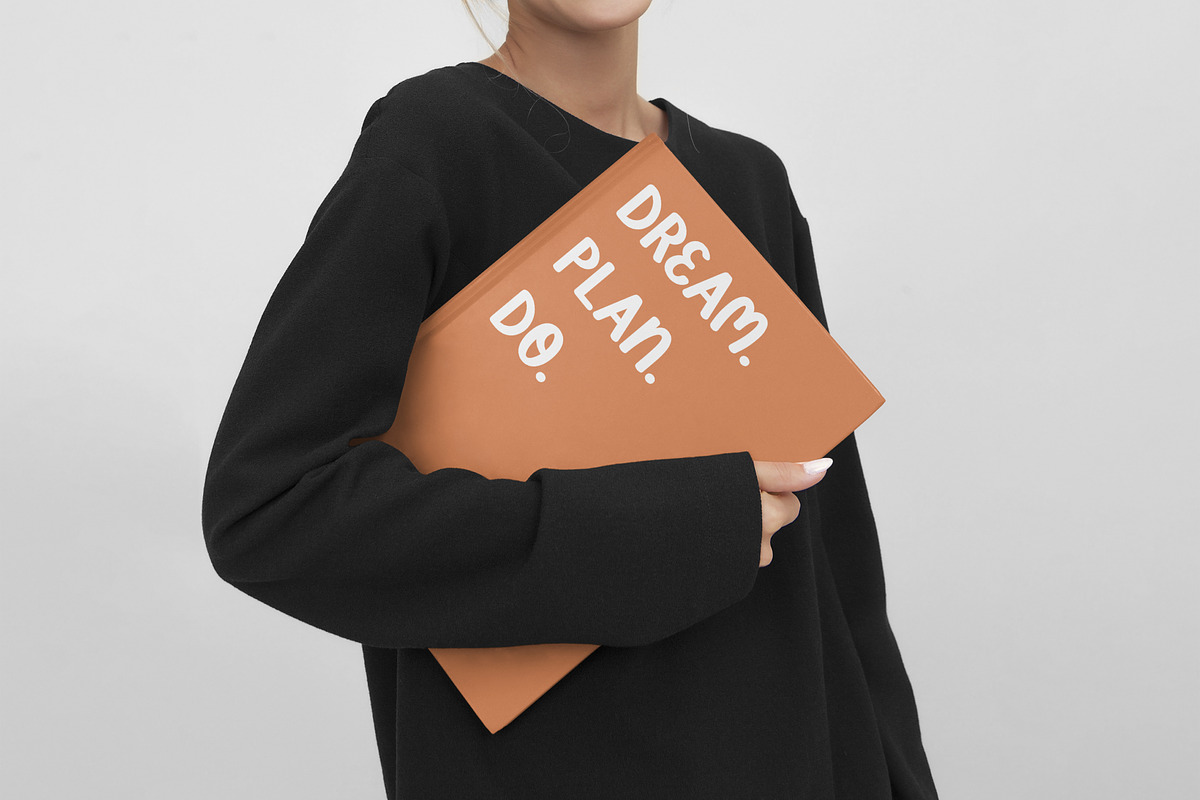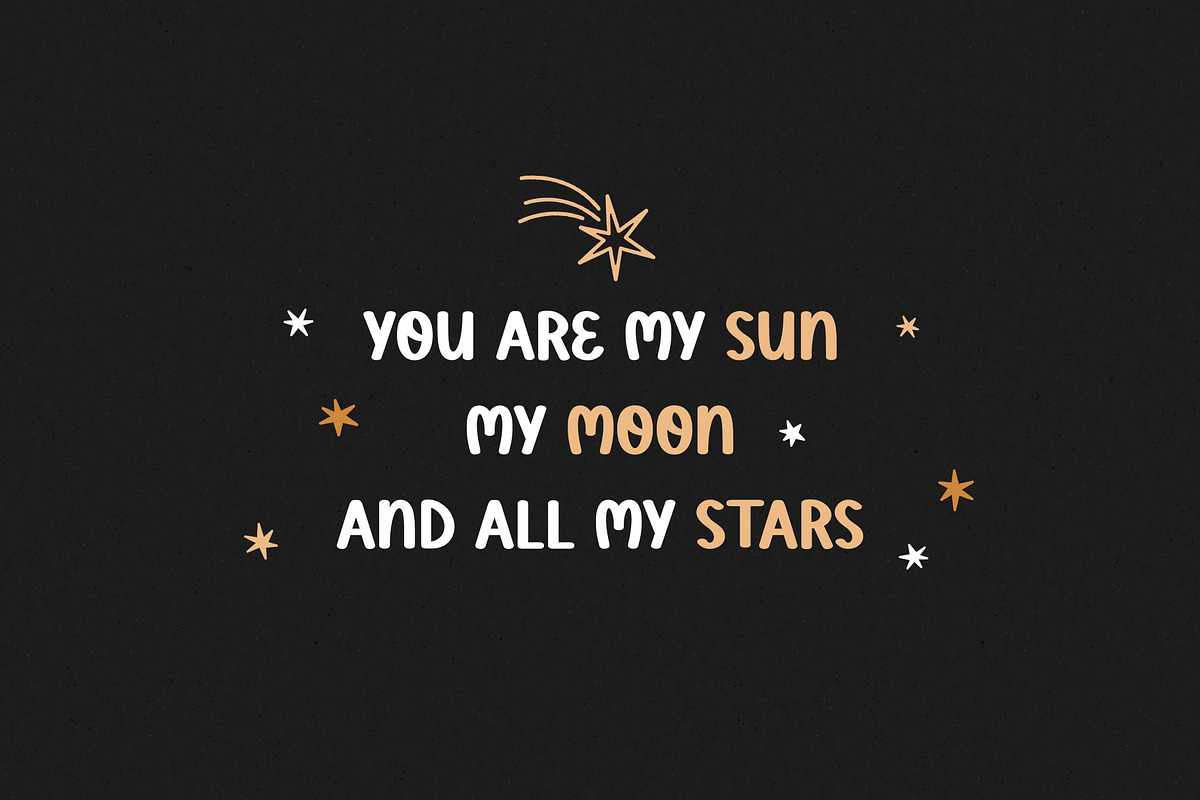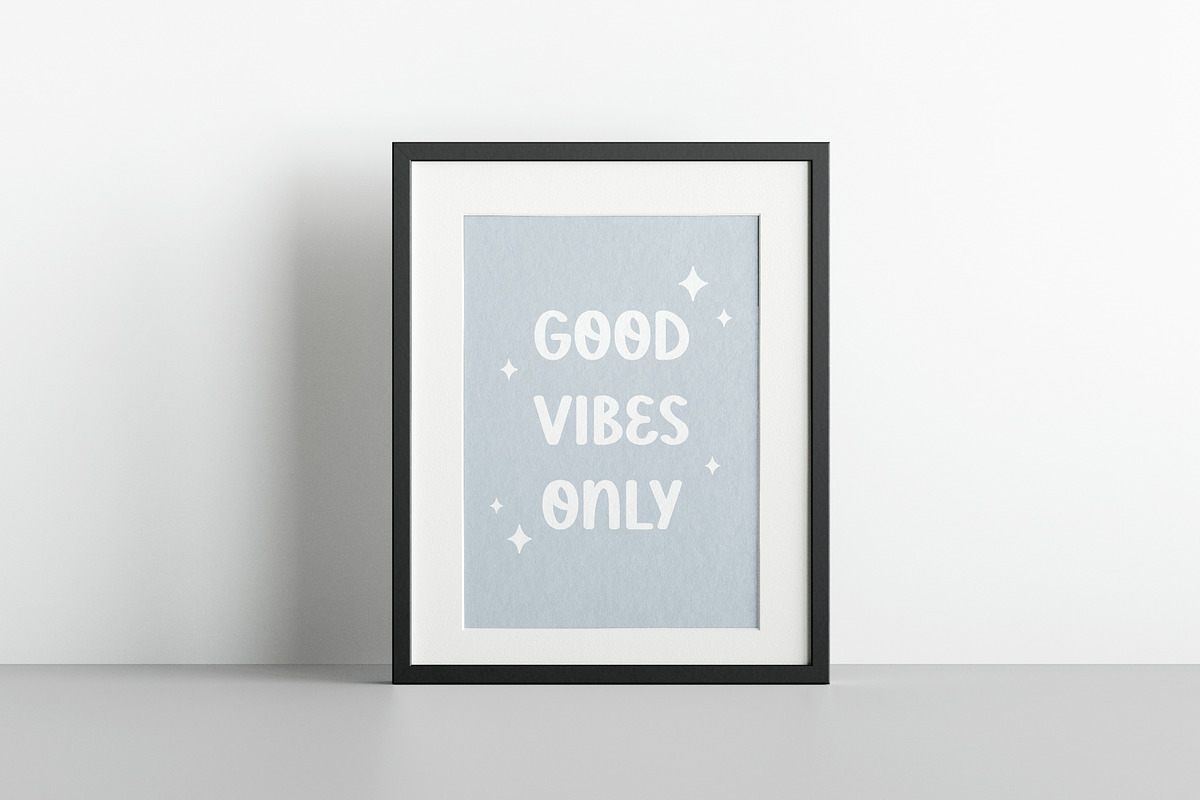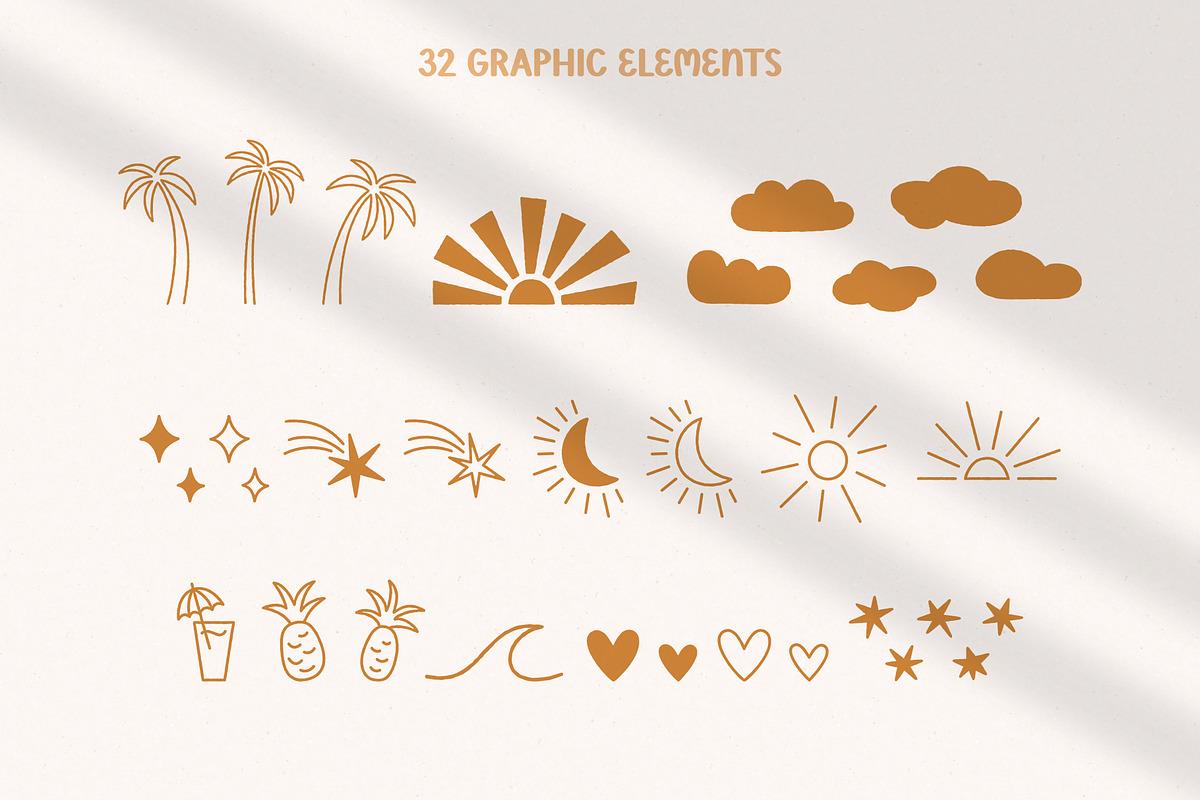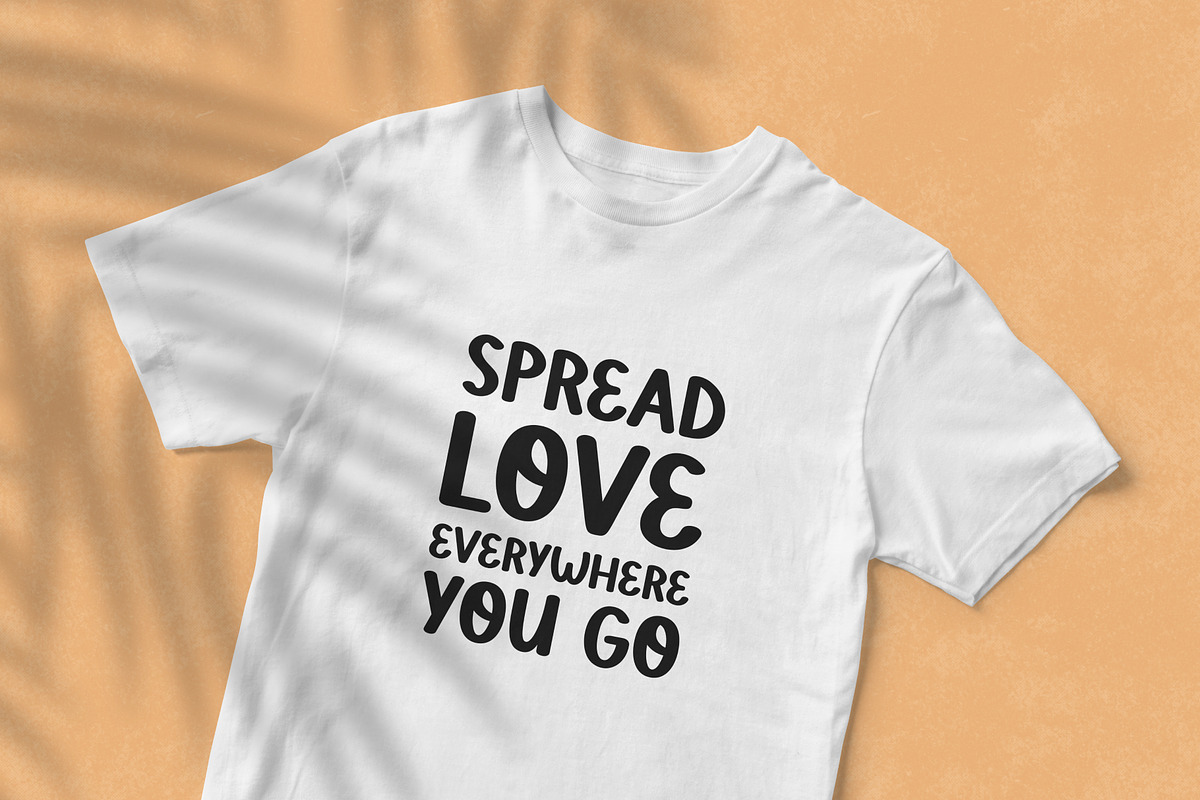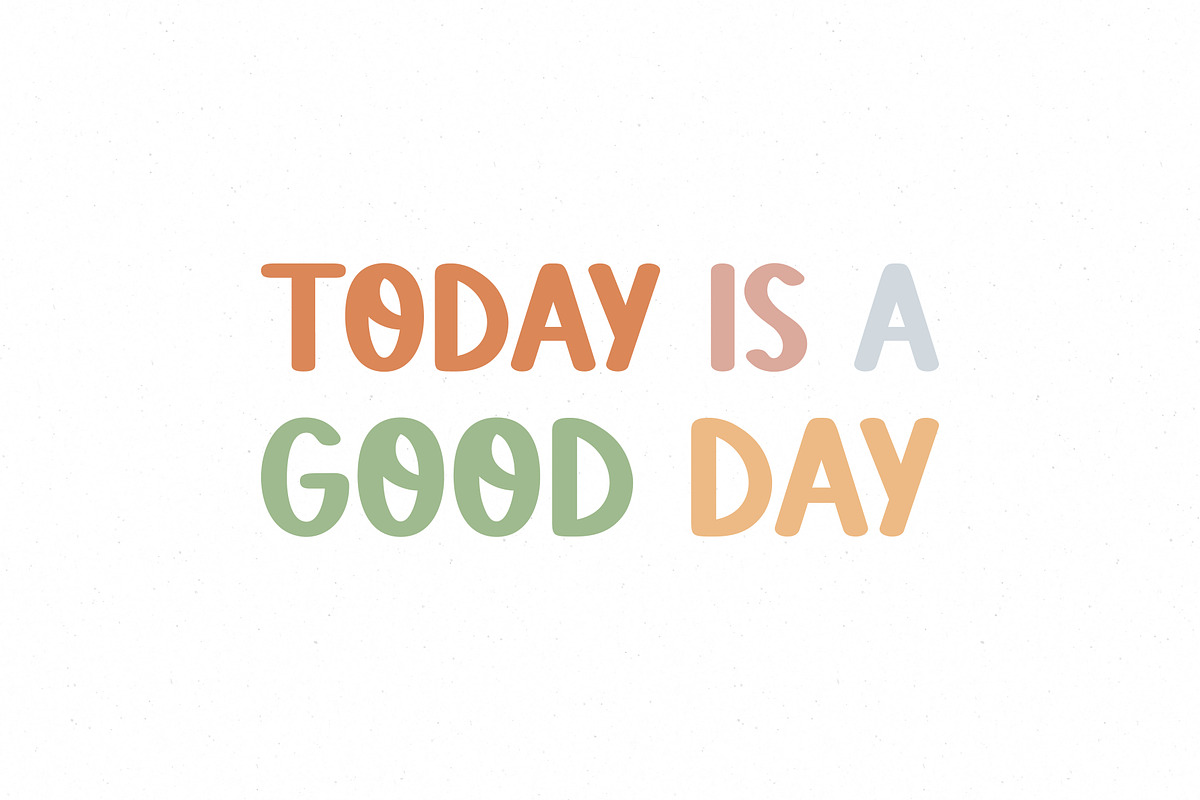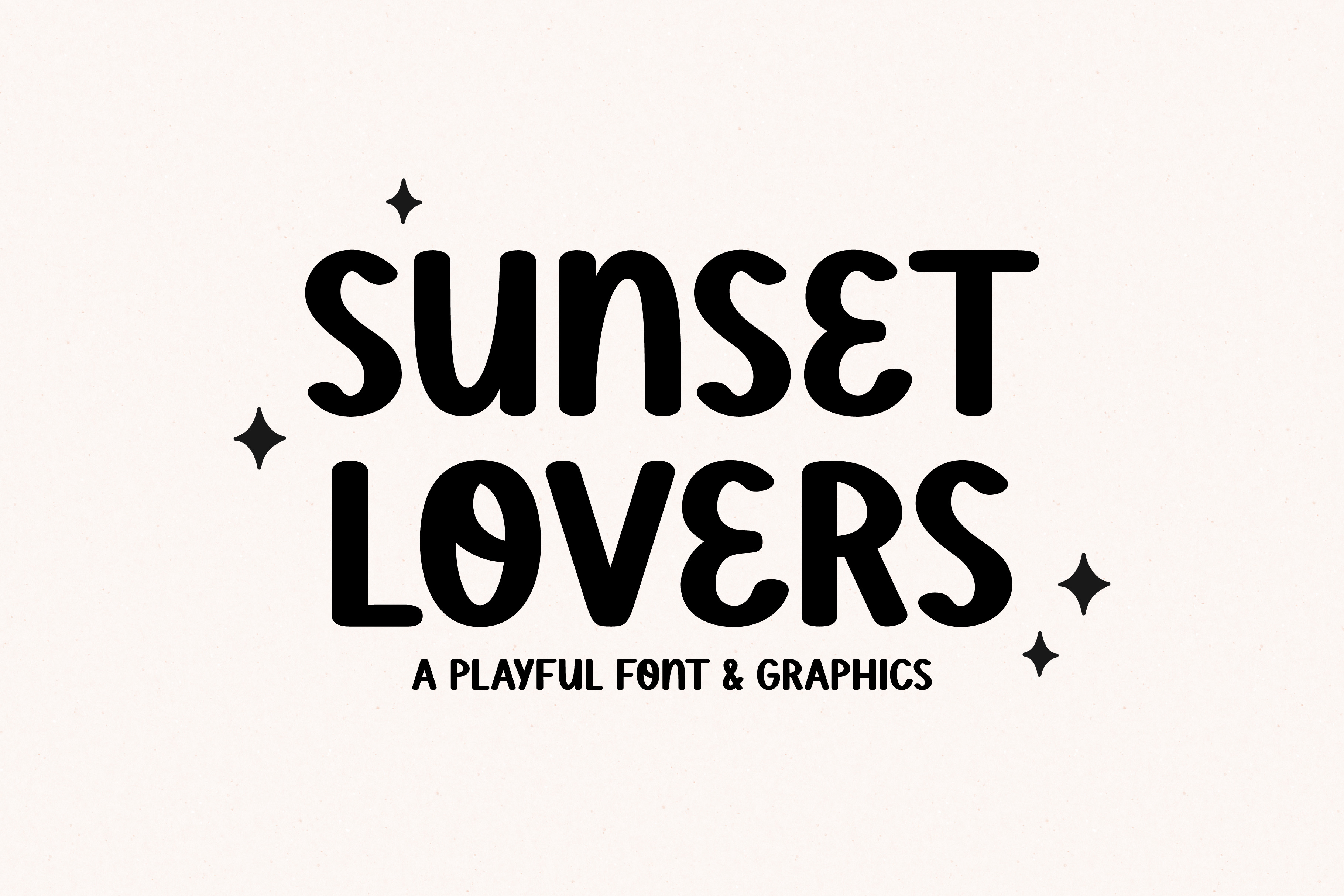
Sunset Lovers - Playful Font
Sunset Lovers - a bold playful all cups typeface with retro vibes and summer graphics. Use for logos, branding, packaging, apparel, cards, posters, quotes, social media posts and so much more!